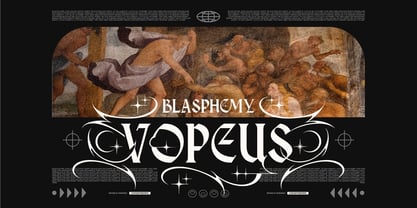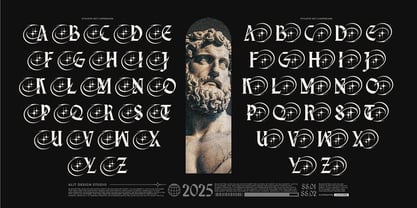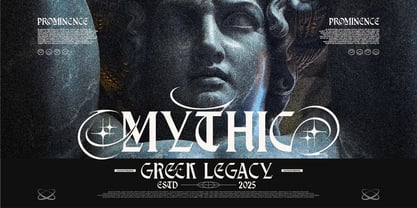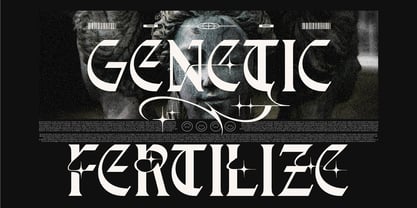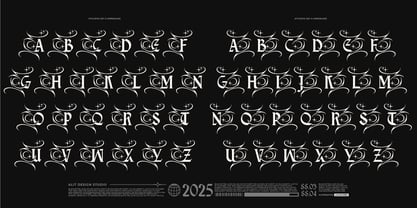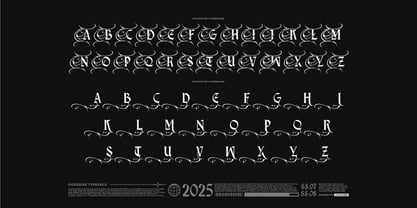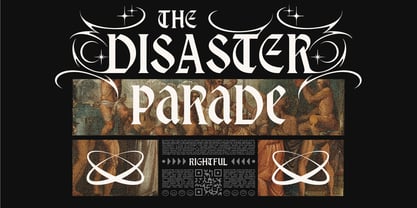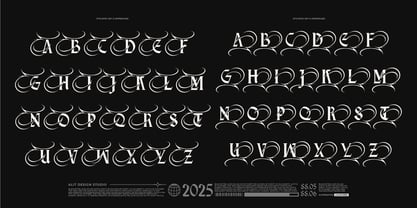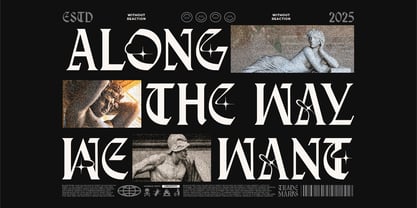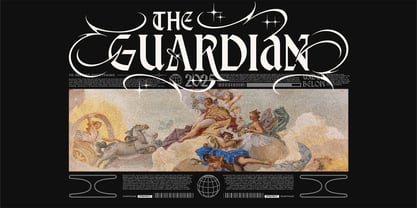
Doverise
The Doverise Font Family was designed by Alit Suarnegara and published by Alit Design. Doverise contains 1 styles.
Doverise Typeface
A Modern Blackletter with Gothic Roots and a Masculine Edge
Doverise Typeface is a modern gothic serif with a striking blend of blackletter elegance and contemporary typographic power. Designed to be bold, expressive, and distinctly masculine, Doverise is built for designers looking to make a strong visual impact. The font features an innovative balance between sharp angular letterforms and ornamental curves, enhanced by tribal-style swashes, making it ideal for everything from dark branding to high-impact editorial design.
Crafted with meticulous detail, Doverise contains a total of 924 glyphs, offering a wide array of ligatures, alternates, and decorative elements. These features give you the flexibility to create unique typographic compositions that feel custom and elevated.
Key Features
• 924 Glyphs – Including uppercase, lowercase, numbers, punctuation, and symbols
• Stylistic Alternates – Add visual variety and customization
• 🔗 Extensive Ligatures – For seamless, ornate letter combinations
• 🌪️ Tribal-Inspired Swashes – Clean and decorative, for added elegance and drama
• 🧱 Modern Serif Fusion – Legibility meets gothic character
• 💪 Bold and Masculine Character – Perfect for brands that need confidence and strength
• 🌍 Multilingual Support – Covers major Latin-based languages
Perfect For:
• Dark and luxury branding
• Music industry visuals (metal, trap, goth, techno)
• Fashion editorials and lookbooks
• Tattoo design and streetwear
• Book and movie titles (fantasy, horror, thriller genres)
• Posters, stickers, merchandise, and packaging
• Game UI and cinematic art assets
Bring power, precision, and gothic beauty to your next design project with Doverise Typeface — where modern serif meets blackletter legacy.